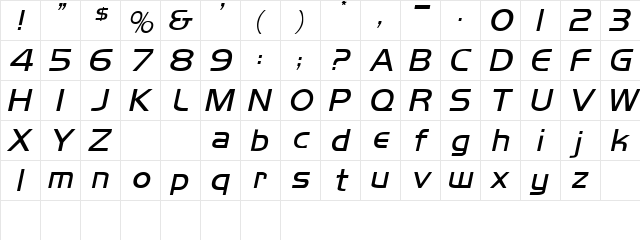
Mikity Italic
Design Context for Mikity Typeface
Mikity is a composed and adaptable typeface that performs quietly and consistently across a wide range of design contexts. The dynamic lean of this cut emphasises speed and emphasis in any layout.
Pro Tip: Use Mikity for emphasis, pull quotes, and subheadings where its slanted energy can add rhythm to the layout.